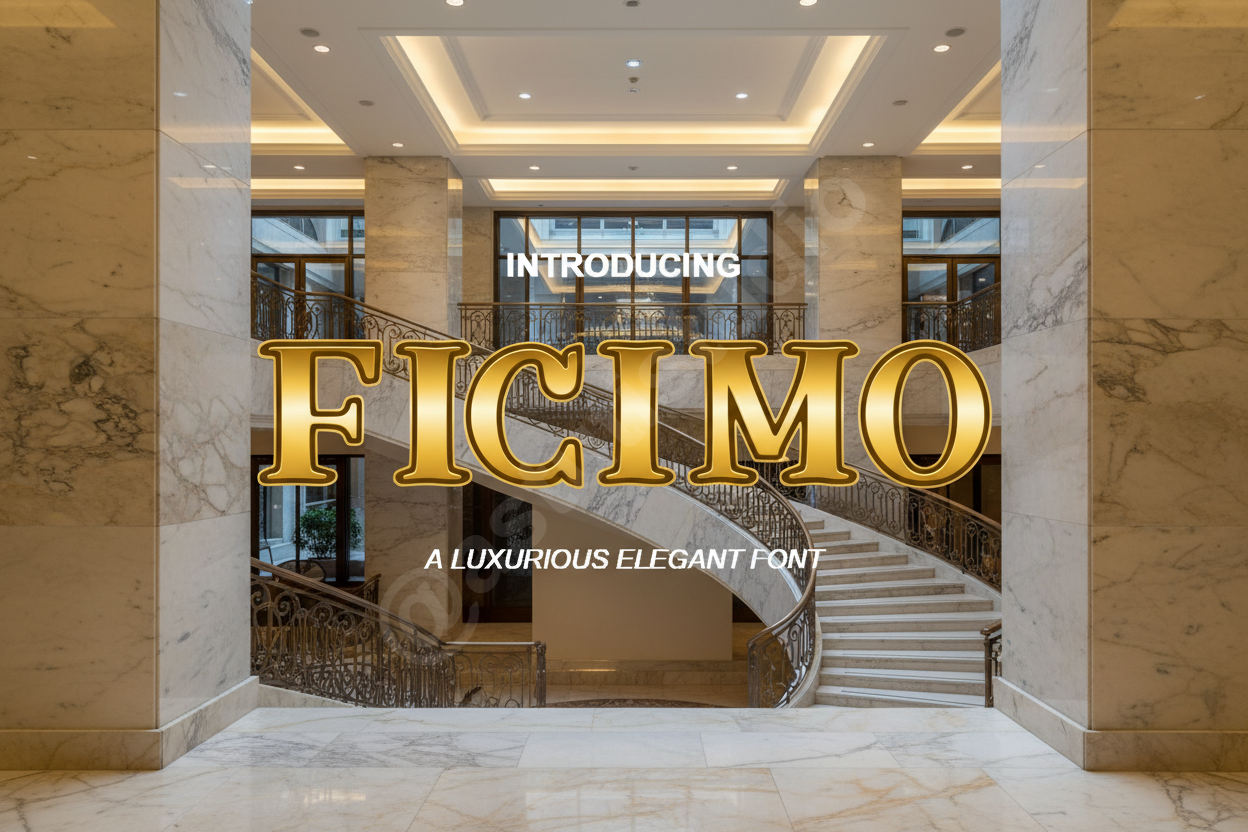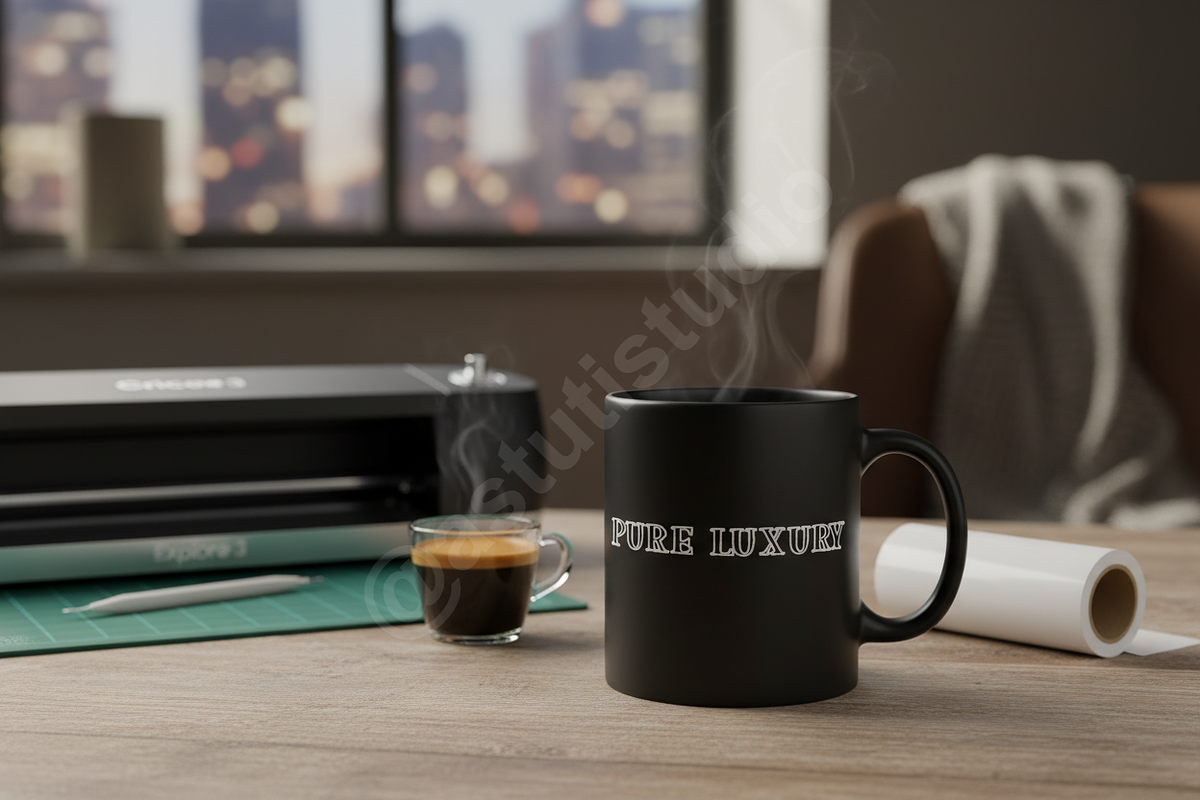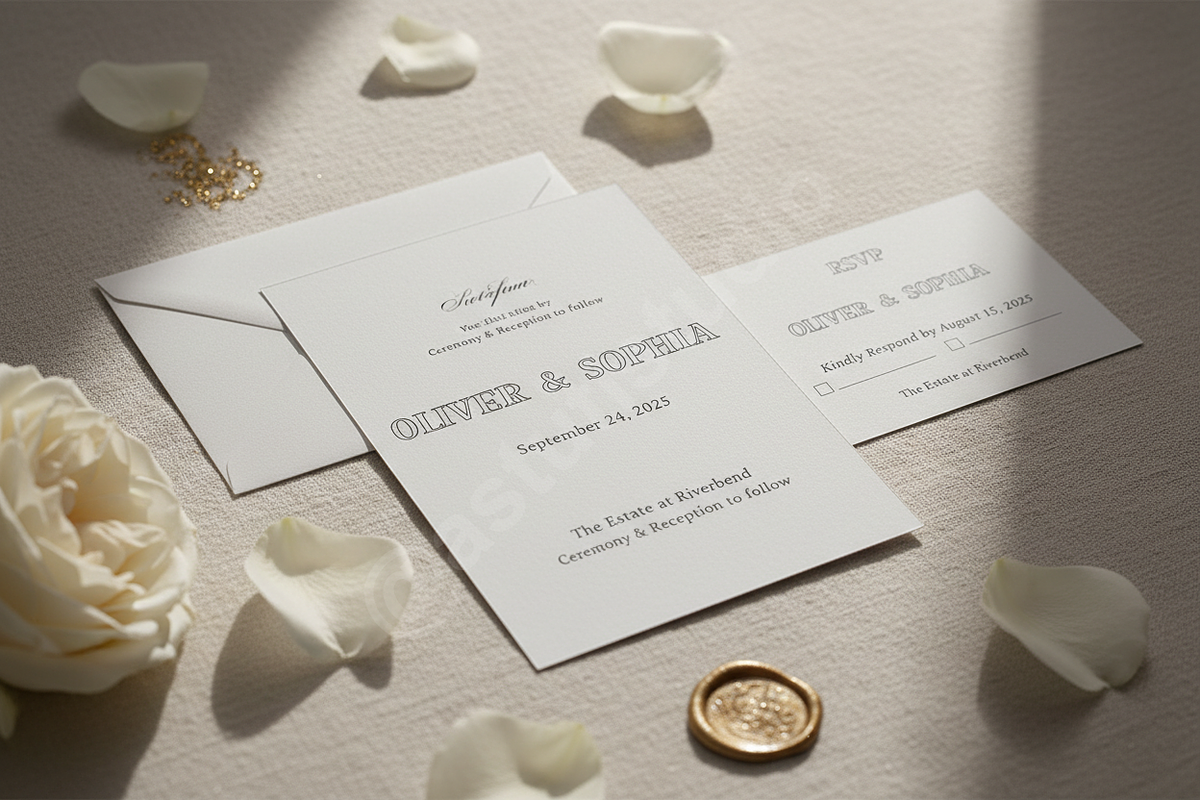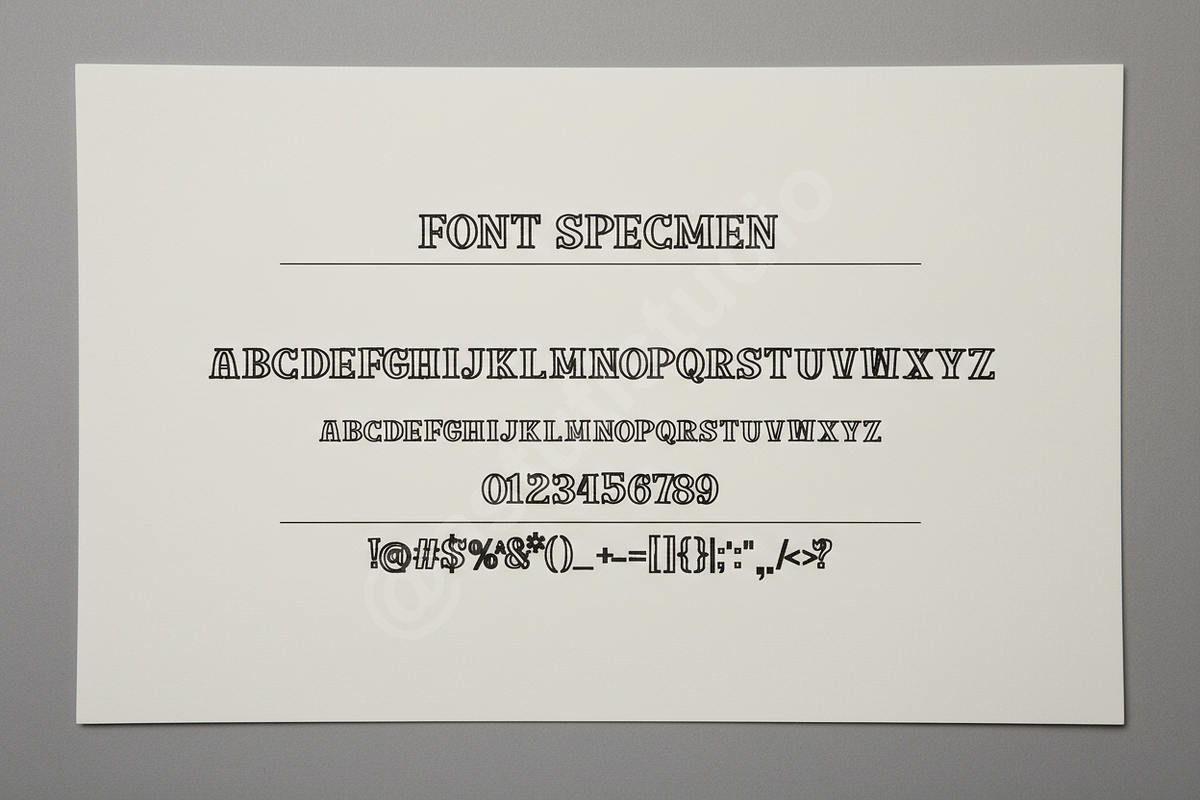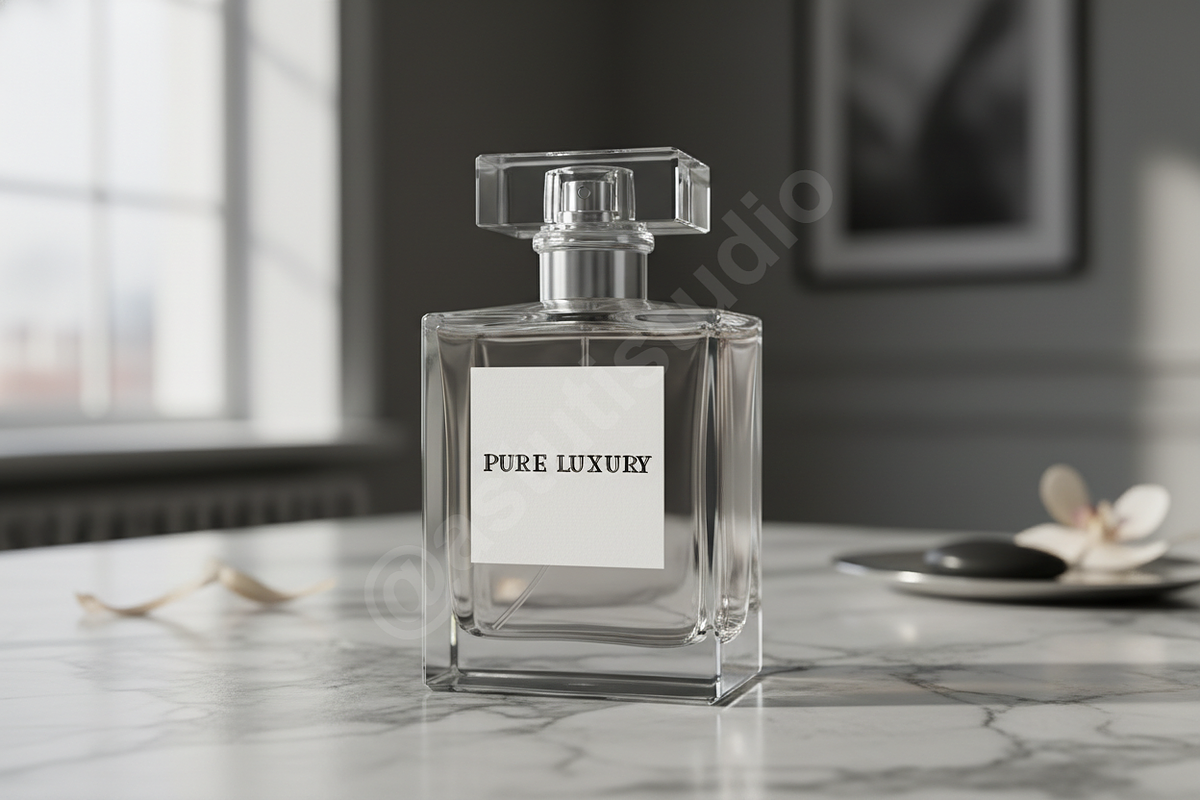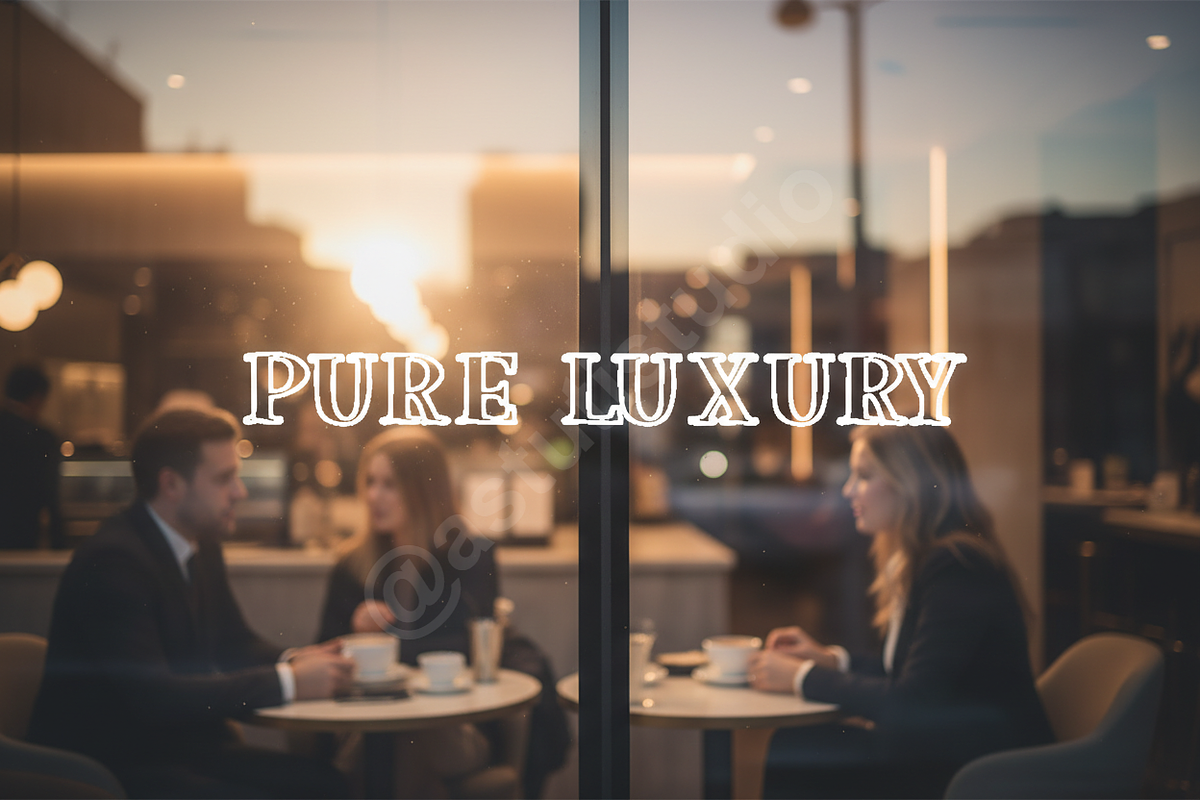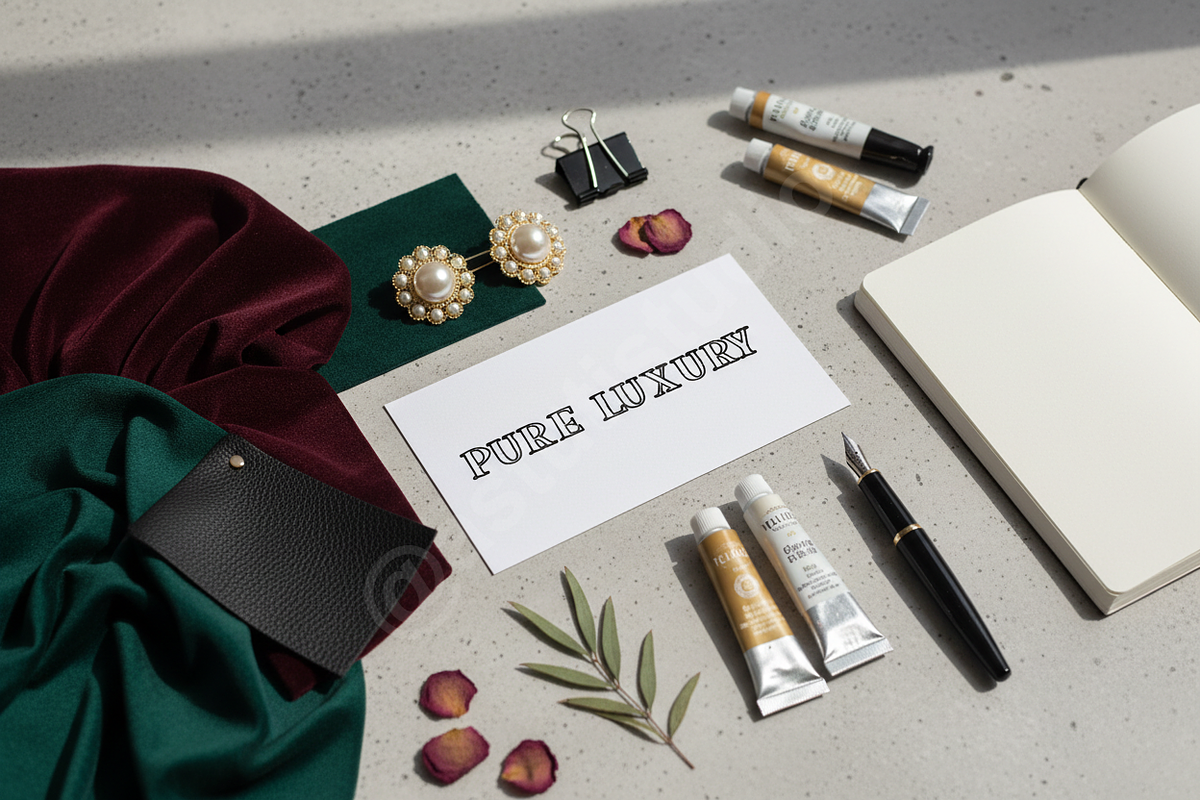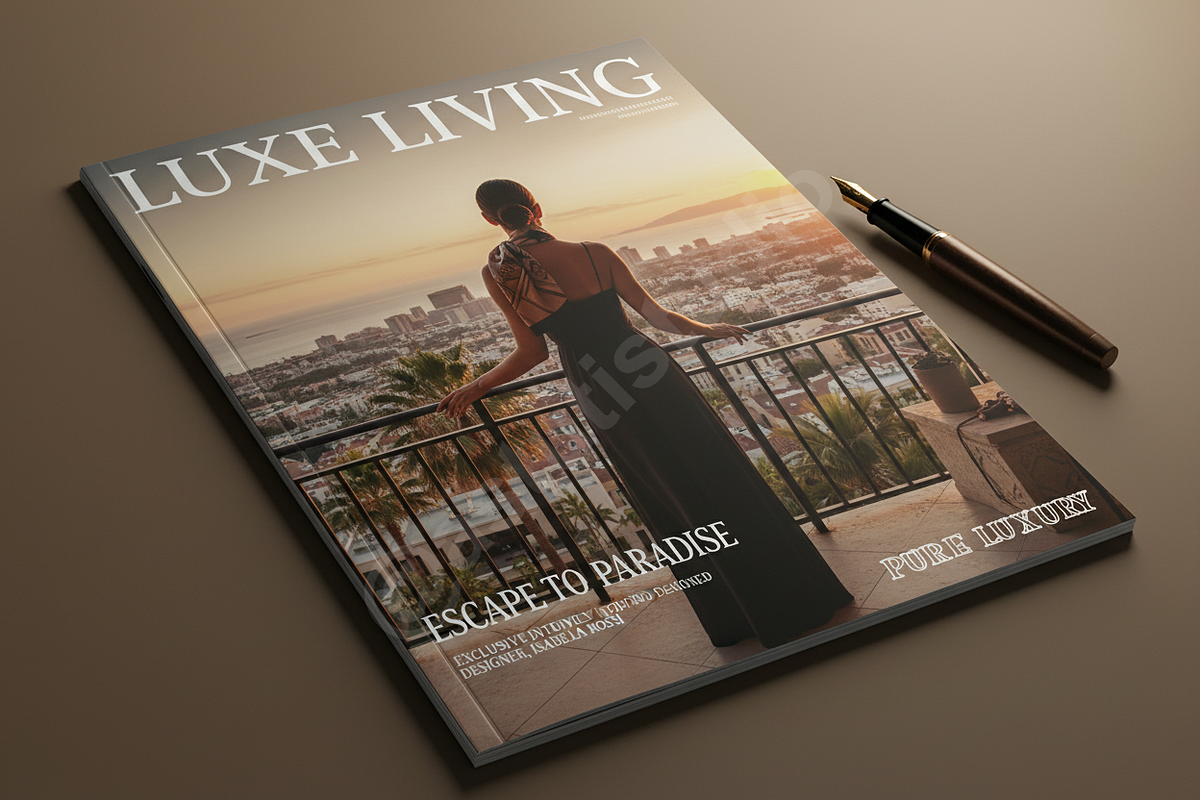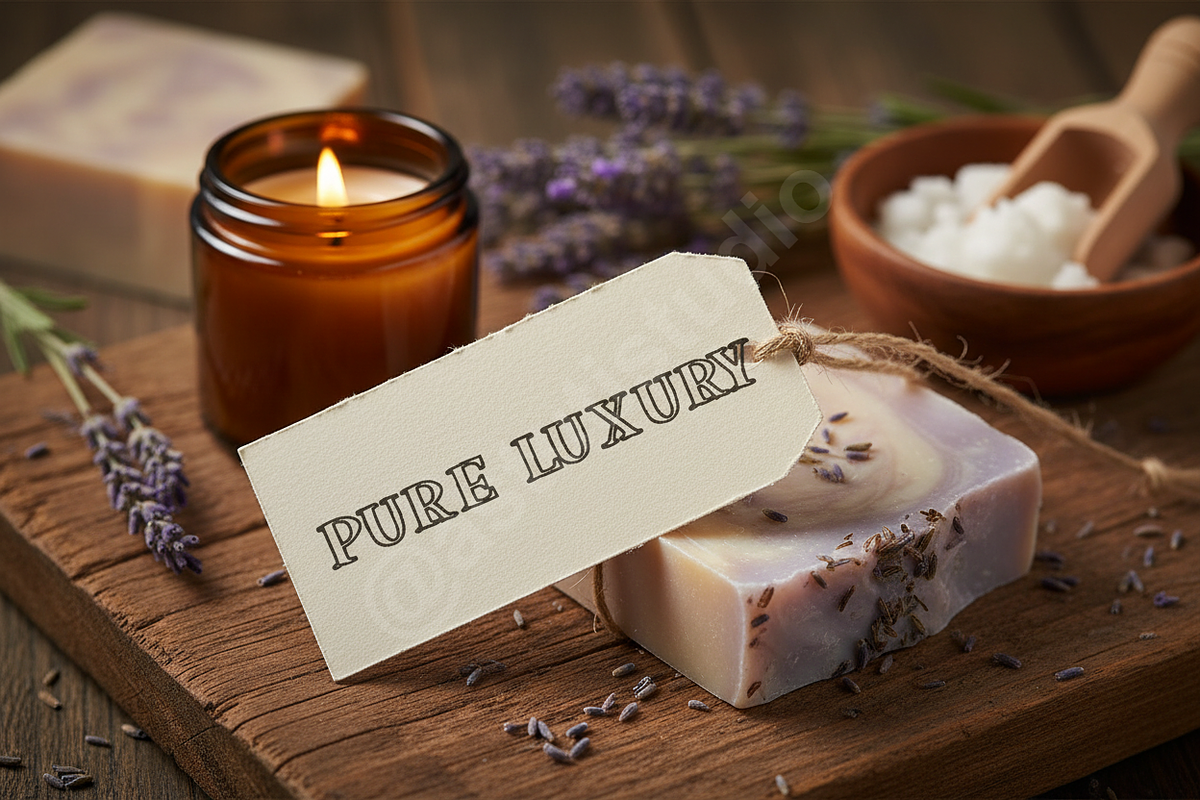
Ficimo - Elegant Serif Font for Luxu
Introducing Ficimo, a sophisticated serif font meticulously crafted for the discerning designer. Ficimo embodies timeless elegance with a contemporary edge, making it the ultimate choice for projects demanding an elevated aesthetic. Perfect for luxury branding, high-end editorial layouts, and impactful social media presence, Ficimo promises to transform your designs into a statement of refined style.
FEATURES: • Refined Serif Details: Each character is designed with precision, offering a graceful and distinguished appearance. • Modern & Versatile: A perfect balance of classic charm and contemporary minimalism, suitable for diverse applications. • Extensive Ligatures & Alternates: Enhance your typography with beautiful connecting characters and stylistic variations for unique customizability. • Multilingual Support: Reach a global audience with comprehensive character sets for various languages. • Optimized Kerning: Meticulously adjusted spacing ensures harmonious readability and a polished finish across all text sizes.